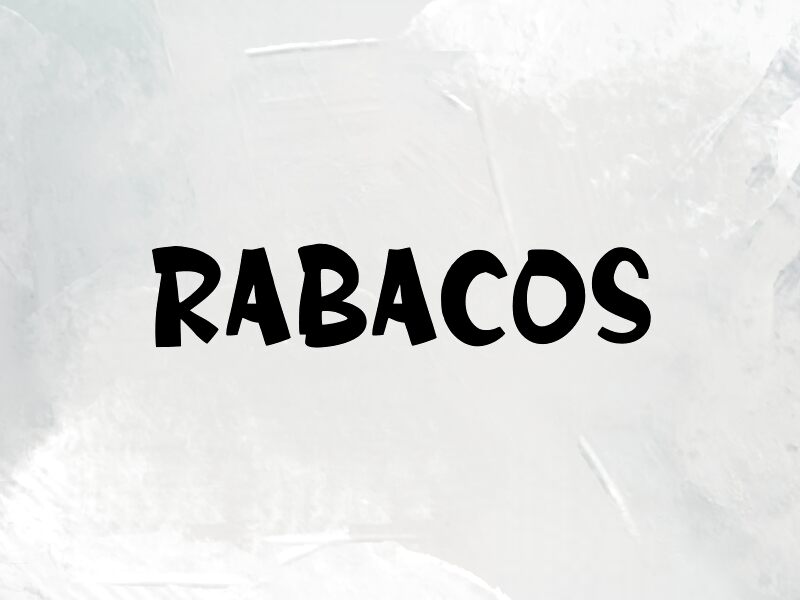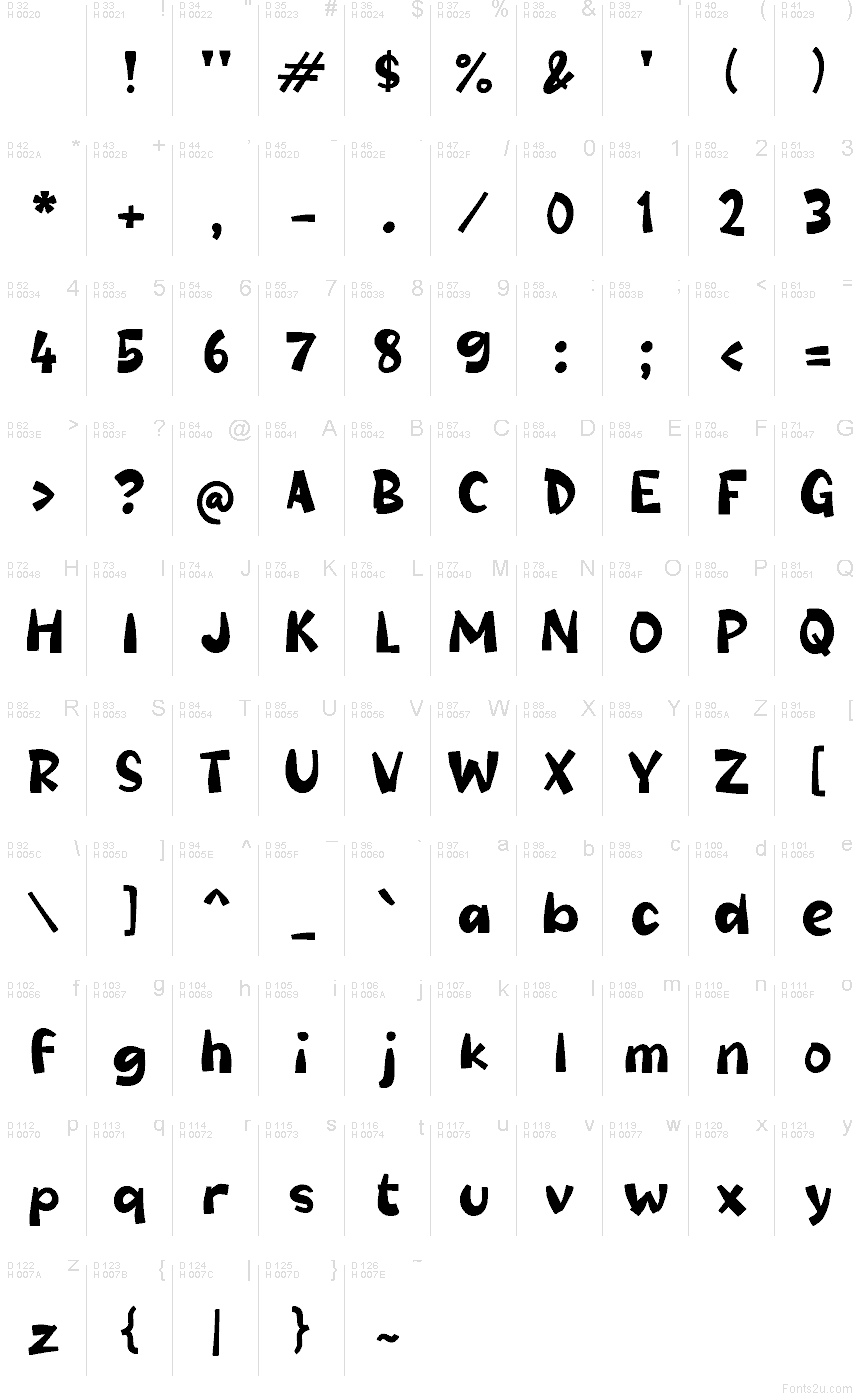
RABACOS
Rabacos font by wepfont.com is a free comic display typeface that bursts with bold, inky energy. Its chunky, hand-drawn letters wobble just enough to feel playful and human, like they were brushed onto a poster in one confident sweep. The rounded shapes, tight rhythm, and slightly uneven flow give Rabacos a friendly, animated voice that jumps off the page or screen.
Using Rabacos, you can amp up the fun in kids’ book covers, comic panels, party invitations, stickers, YouTube thumbnails, and playful brand logos. This free font shines when used large, where its thick strokes and bouncy silhouettes can really show off. For supporting text, pair it with a clean sans serif in a lighter weight to keep your layouts readable while Rabacos does the talking in your headlines.